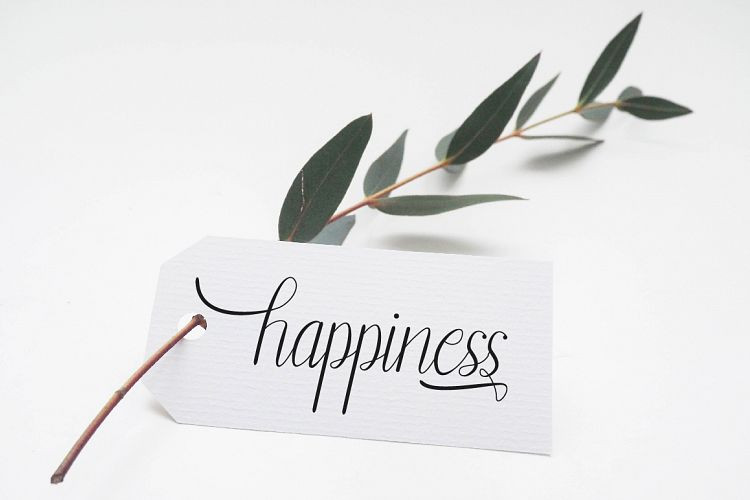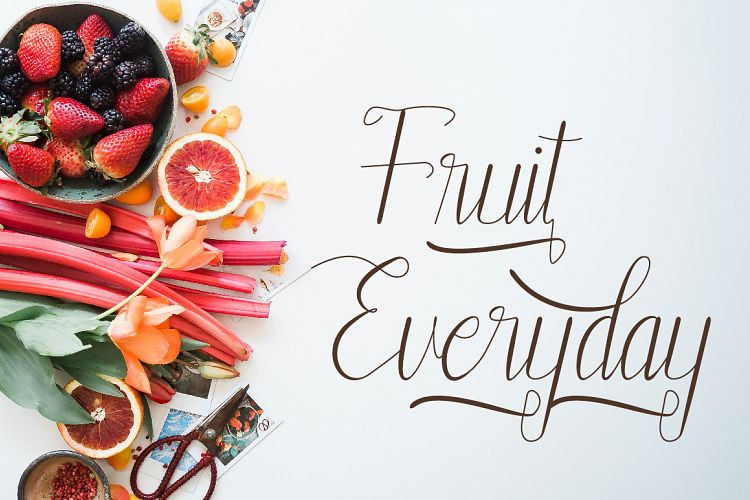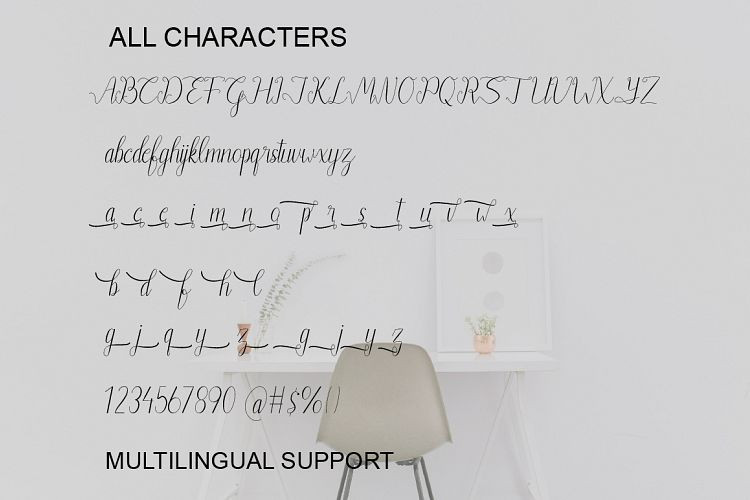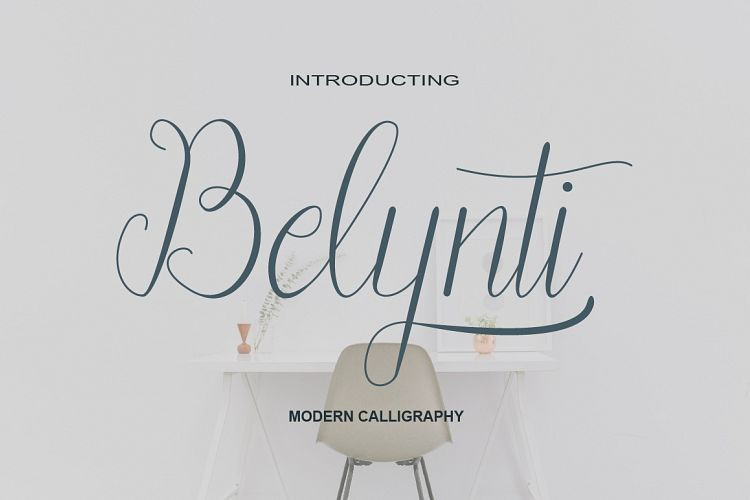
Belynti Calligraphy Font
Belynti Calligraphy – Free Demo
Glad to introduce to you a new calligraphy font, in a bouncy yet flowing hand lettered style, it’s perfect to add a touch of stylish flair to any creative project. Introducing Belynti Font. It’s a friendly and Elegant font with a unique style. Fall in love with its charming appearance! For you who needs a typeface for headline, logotype, apparel, invitation, branding, packaging, advertising etc. This typeface is comes in uppercase, lowercase, punctuation, numerals, stylistic set alternate, ligatures, also support multilingual.